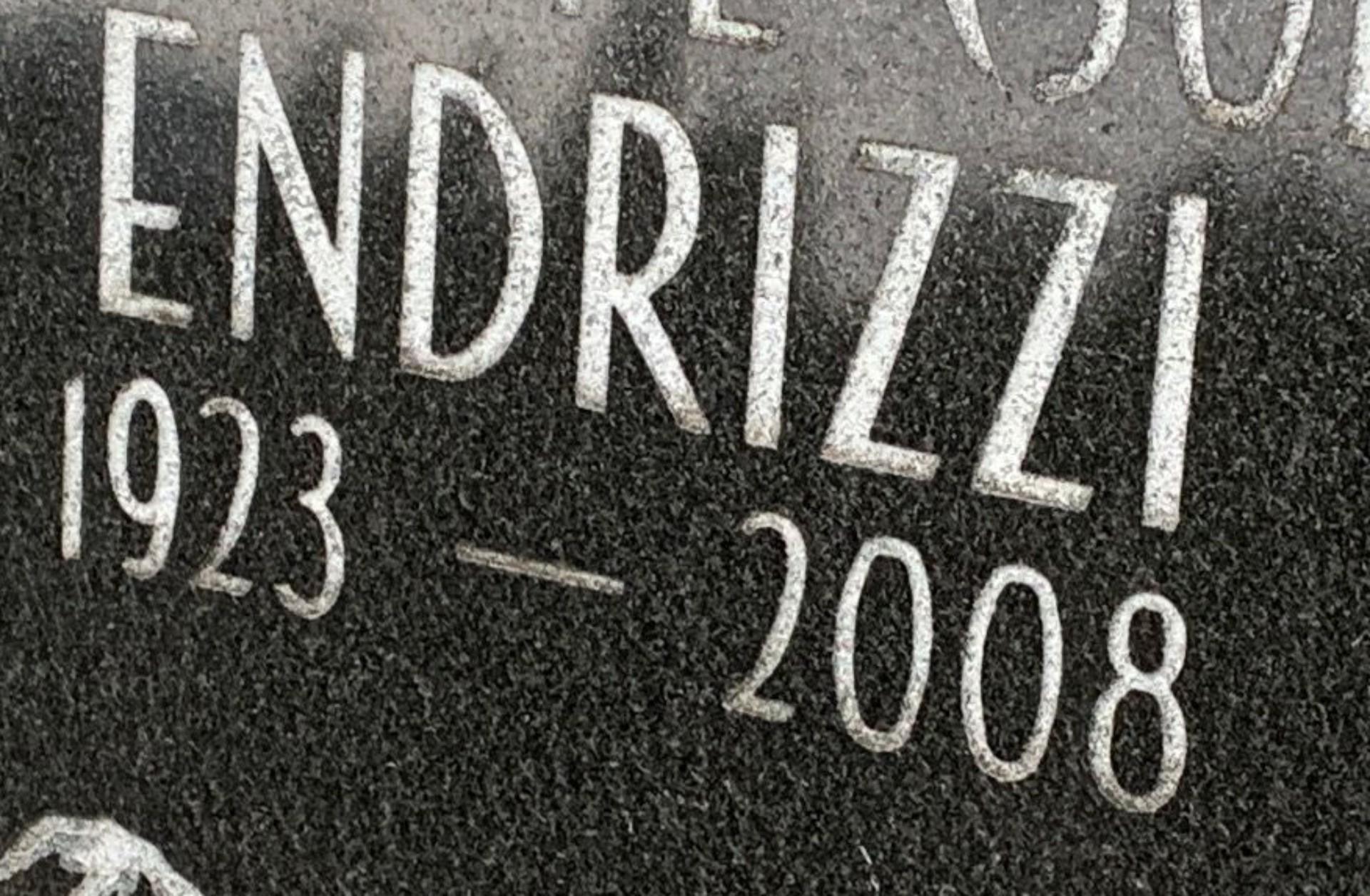
Does anyone know what font this is?
Hi Kim, this is an AICA member font named AICA 25. There are many custom versions of the font, and this looks like the slightly bolder version named Remod which was created by Remco Memorials.